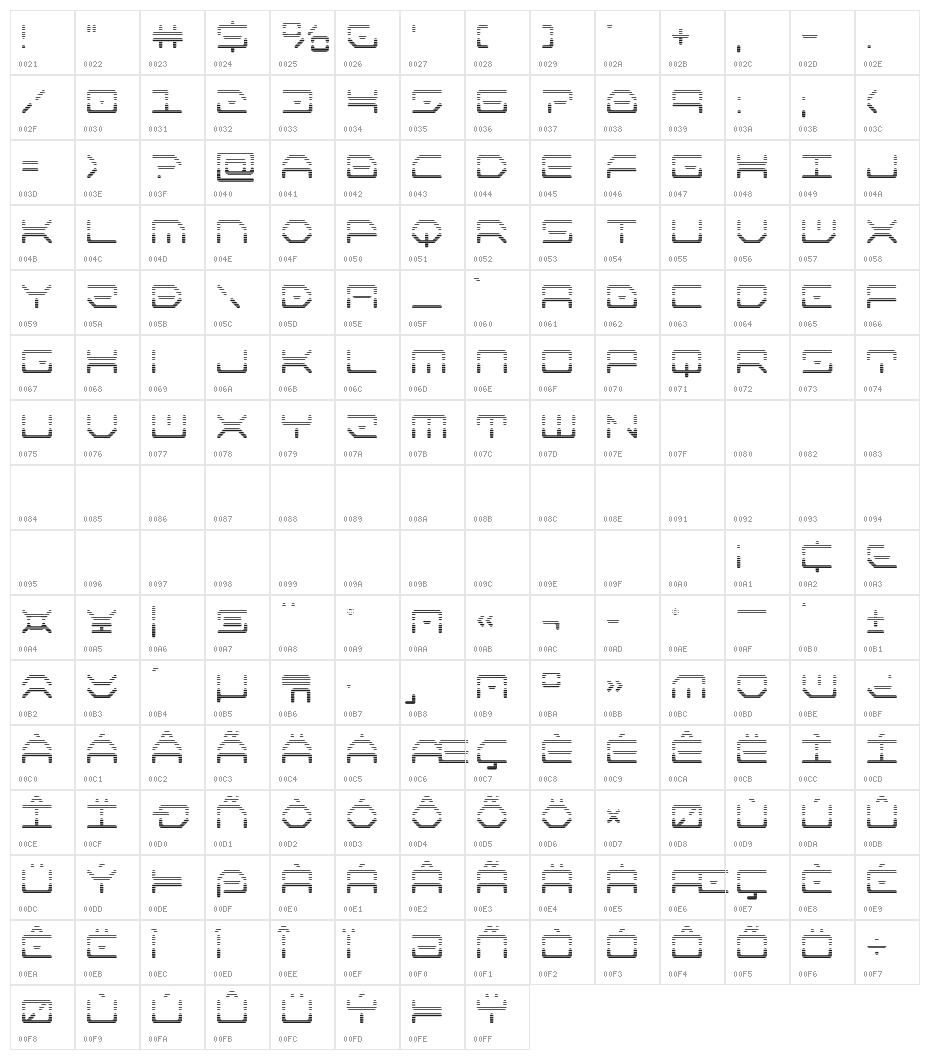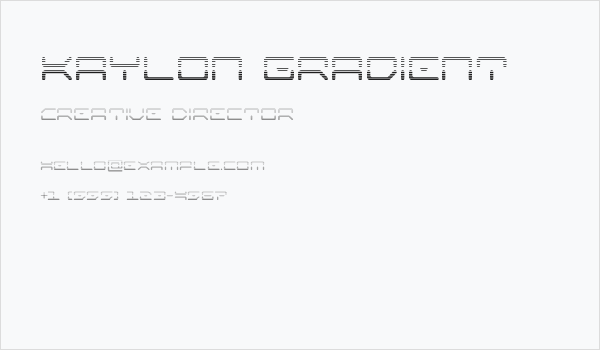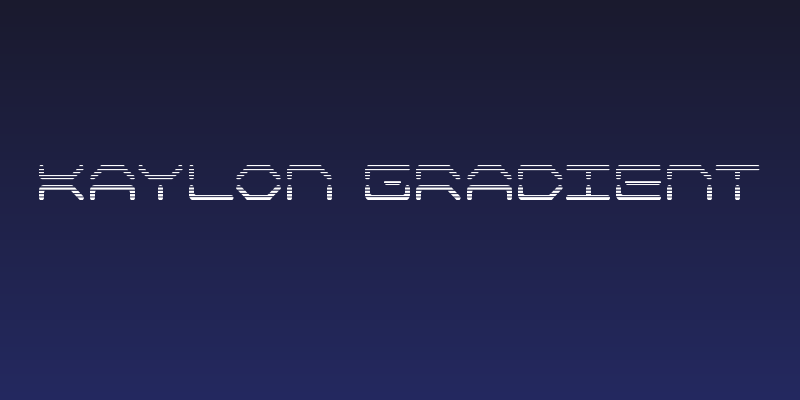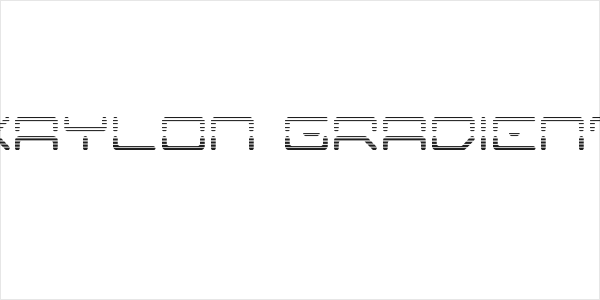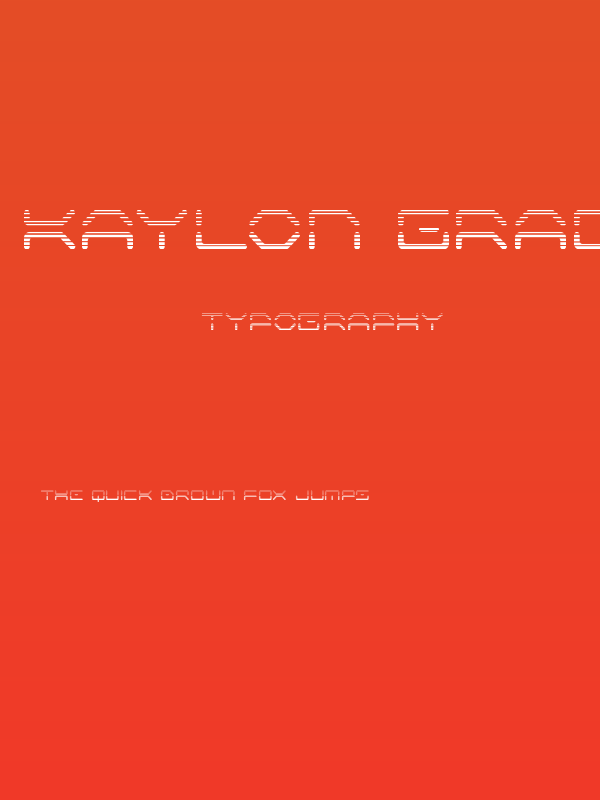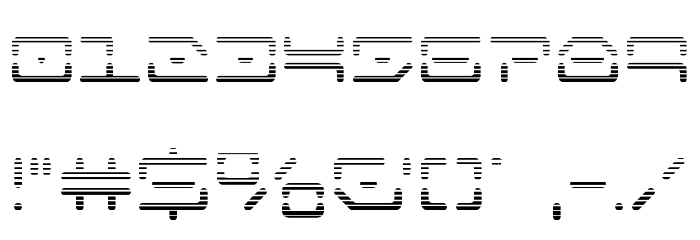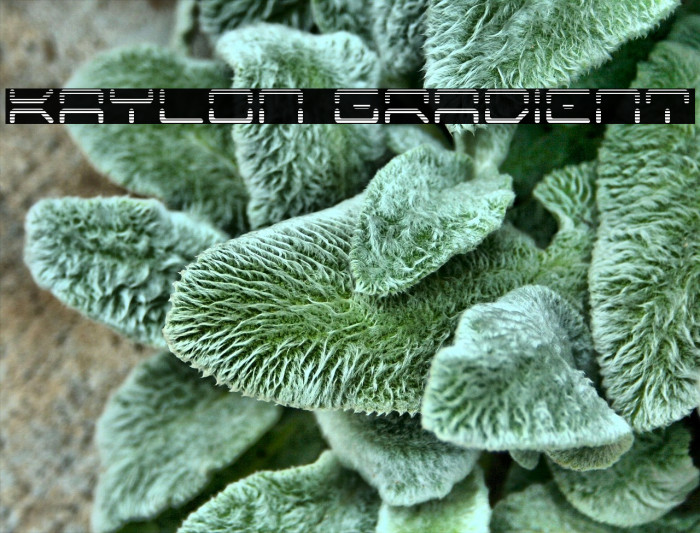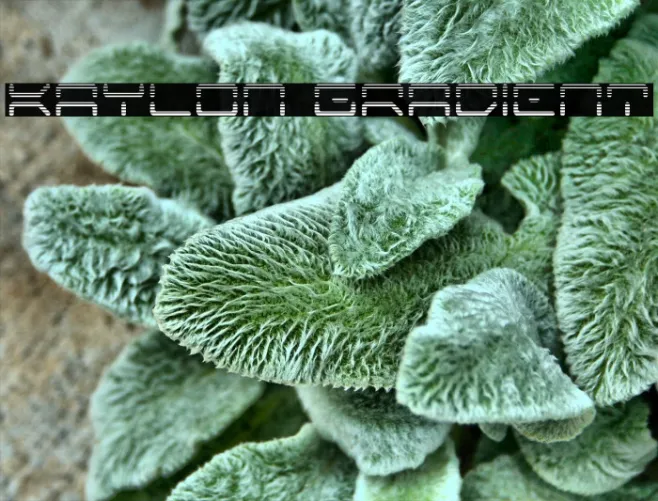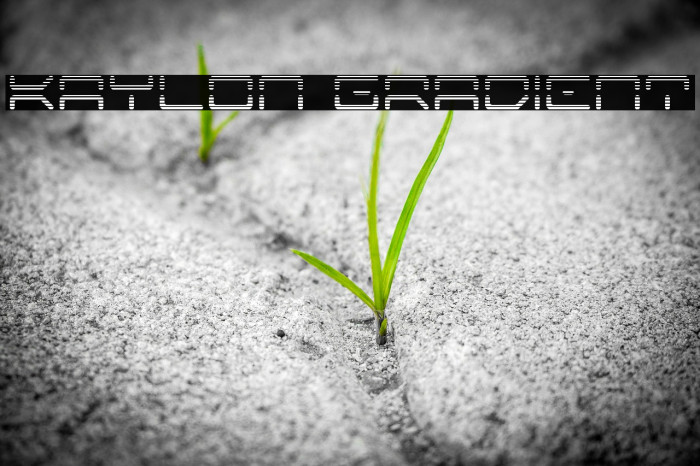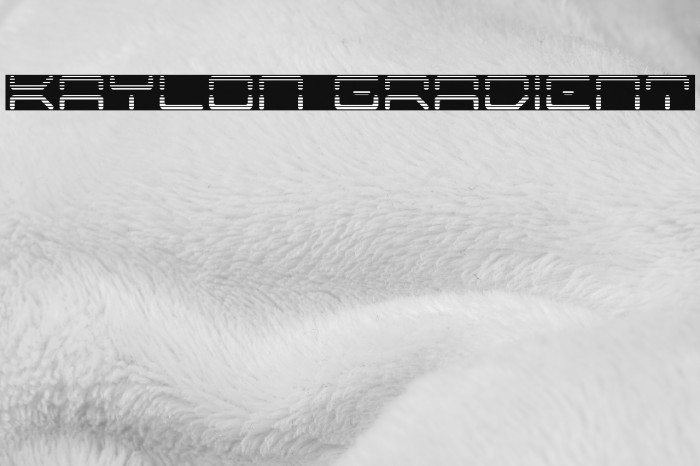
Kaylon Gradient Font
Kaylon Gradient Description
This font features a futuristic and digital aesthetic, characterized by its segmented and gradient-like appearance. Each character is composed of multiple horizontal lines that create a sense of movement and depth. The design is highly geometric, with sharp angles and a consistent stroke width throughout. The uppercase and lowercase letters maintain a uniform style, enhancing the font's cohesive look. Numbers and special characters are designed with the same segmented approach, ensuring visual harmony across all elements. This font is ideal for projects that require a modern and tech-inspired feel.
| Proposed Projects | Ideal for technology branding, digital interfaces, video game titles, and sci-fi themed designs. |